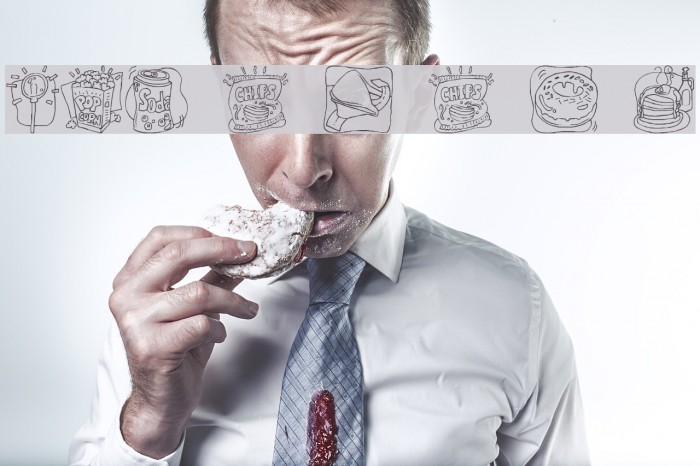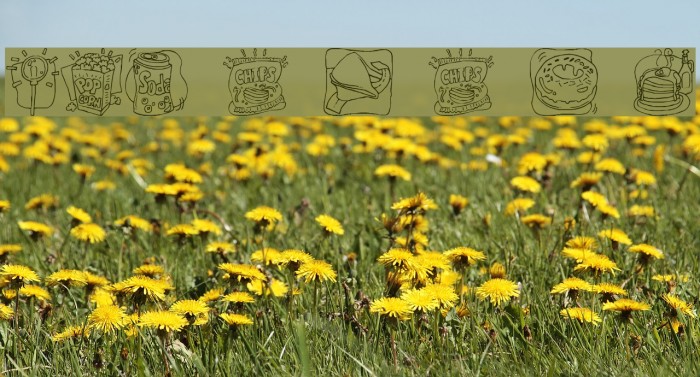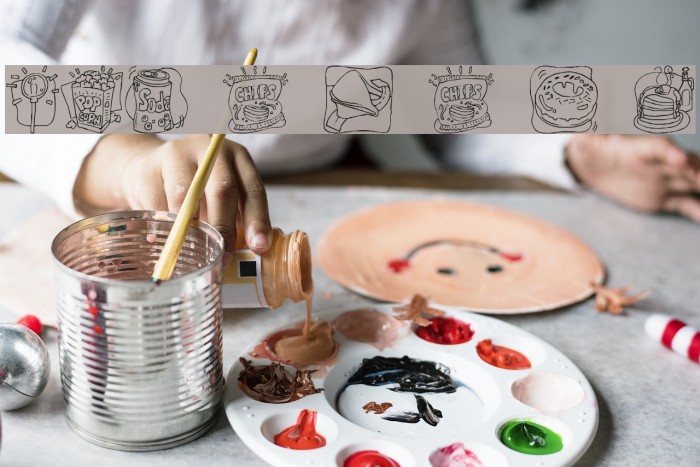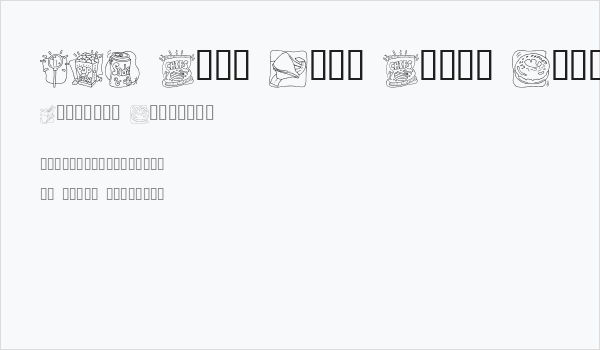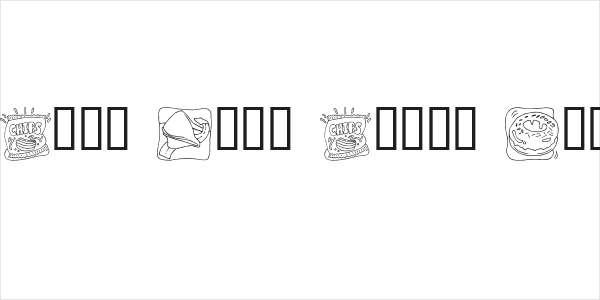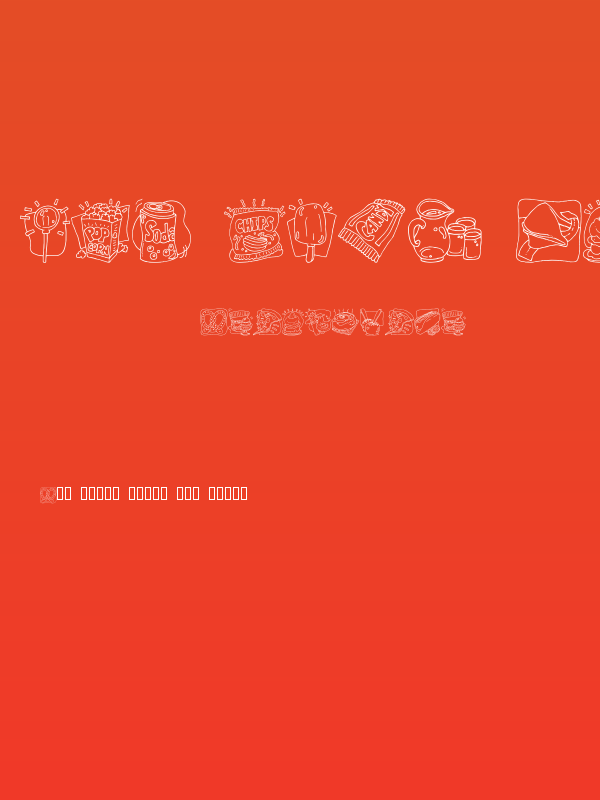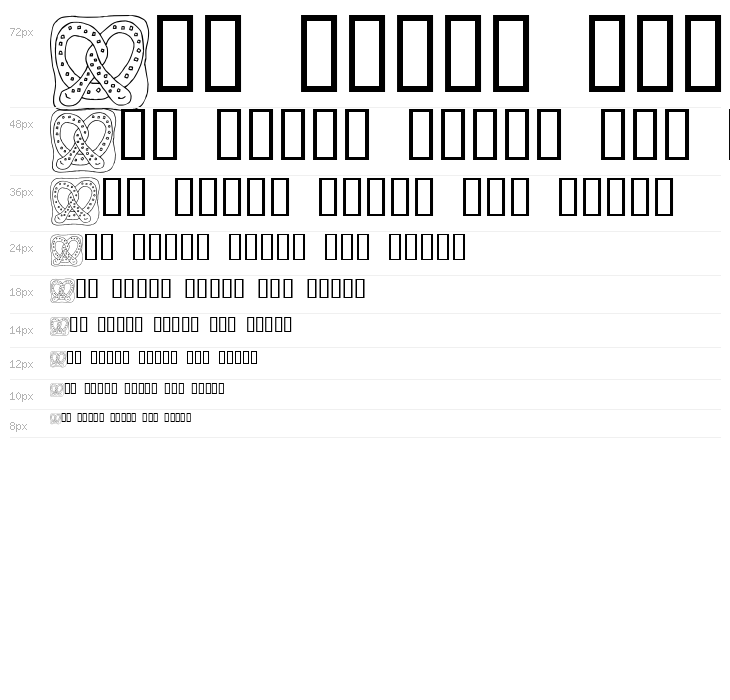
LMS Junk Food Junky Ding Bat Font
This is a playful and whimsical dingbat font featuring a variety of junk food illustrations. Each character is represented by a unique food item, ranging from burgers and fries to ice cream and soda. The style is hand-drawn with a cartoonish flair, making it perfect for projects that require a fun and lighthearted touch. The illustrations are detailed yet simple, capturing the essence of each food item with minimal lines and a sketch-like quality.
Overall StyleWhimsical
Use CaseLogos, Invitations, Posters
Proposed ProjectsIdeal for food-related designs, children's party invitations, playful branding, and any project needing a fun, food-themed element.